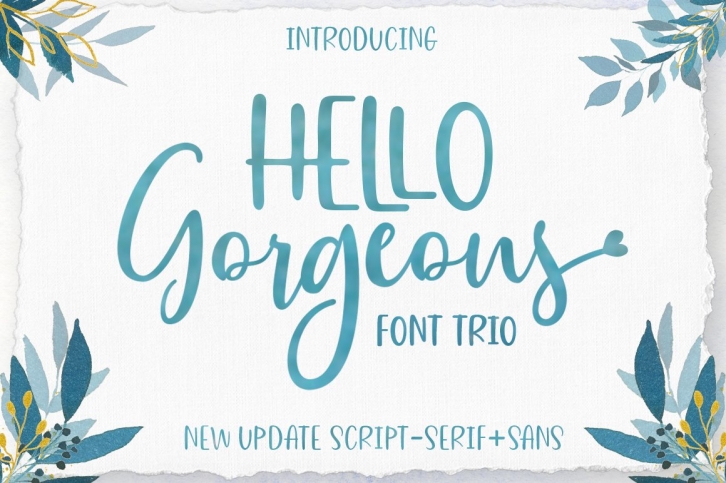
Gorgeous Script Trio is a trendy and unique font with an authentic style. It was designed by Zane Studio and it's a great choice for creative people who need such a font. It was released on October 20, 2019 and the file size is 5.42 MB. Gorgeous Script Trio will add an organic vibe to any design idea!